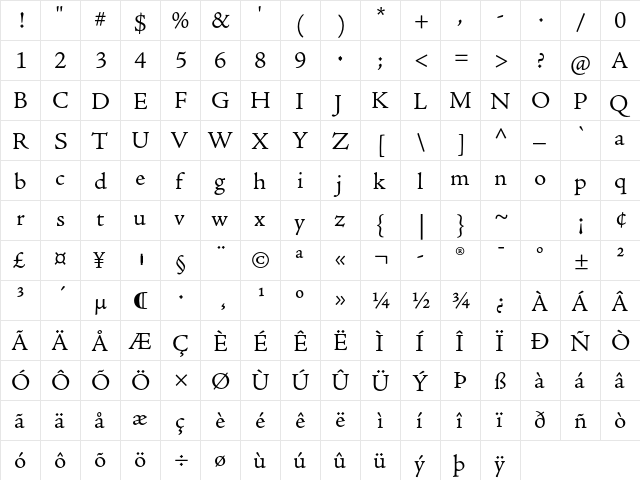
Adobe Jenson Pro Light Caption
| Designer | Robert Slimbach |
Design Context for Adobe Jenson Pro Typeface
Adobe Jenson Pro offers clean, dependable letterforms without strong stylistic allegiance, making it a practical choice for designers who need flexibility. The delicate stroke weight brings airiness and refinement to layouts.
Pro Tip: Use Adobe Jenson Pro in both headline and body roles to test its range before committing to a single application.